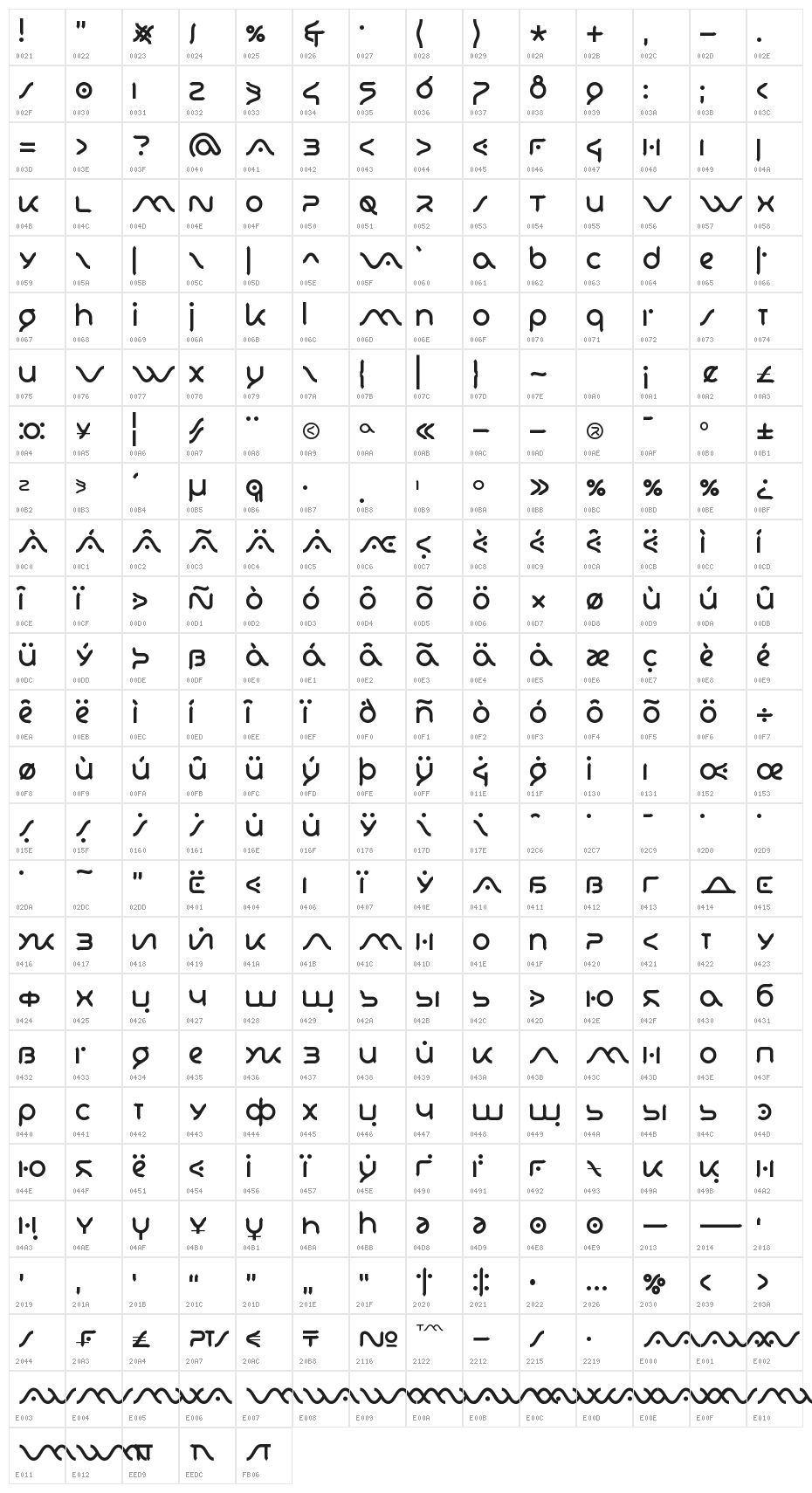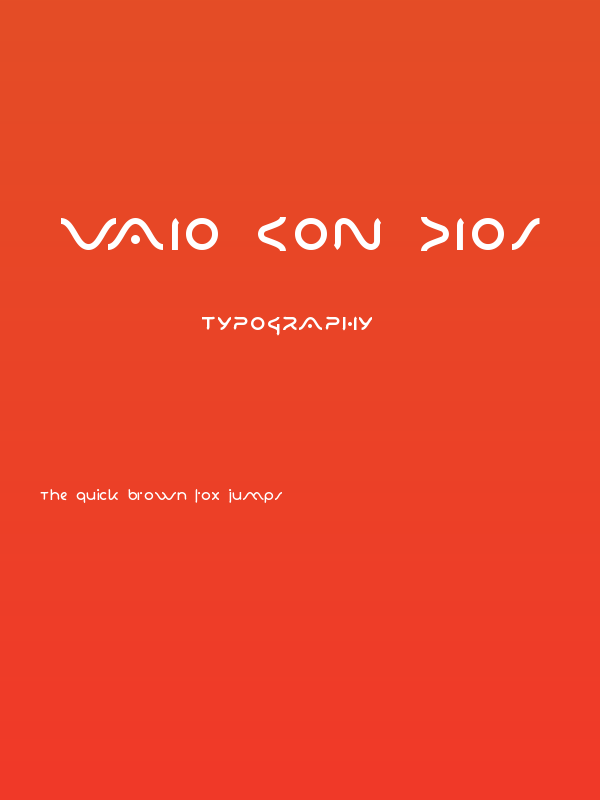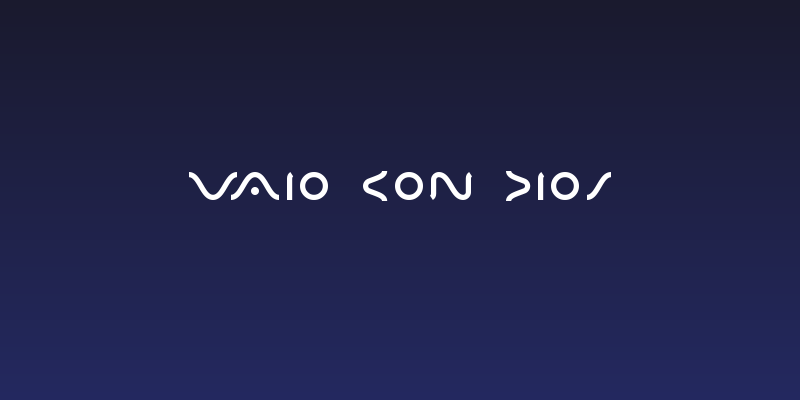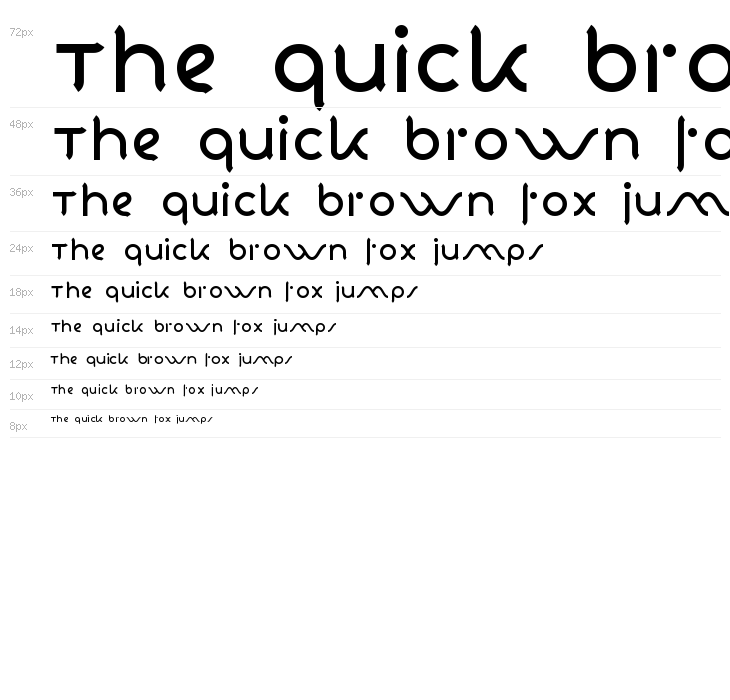
VAIO CON DIOS Font
VAIO CON DIOS Description
This font features a unique, futuristic design with a distinct geometric style. Each character is crafted with a combination of sharp angles and smooth curves, creating a visually striking appearance. The uppercase and lowercase letters maintain a consistent aesthetic, with a focus on symmetry and balance. Numbers and special characters are designed to complement the alphabet, featuring similar angular elements. The overall look is modern and slightly abstract, making it suitable for creative and innovative projects.
| Proposed Projects | Ideal for technology branding, sci-fi themed designs, modern art projects, and innovative product packaging. |